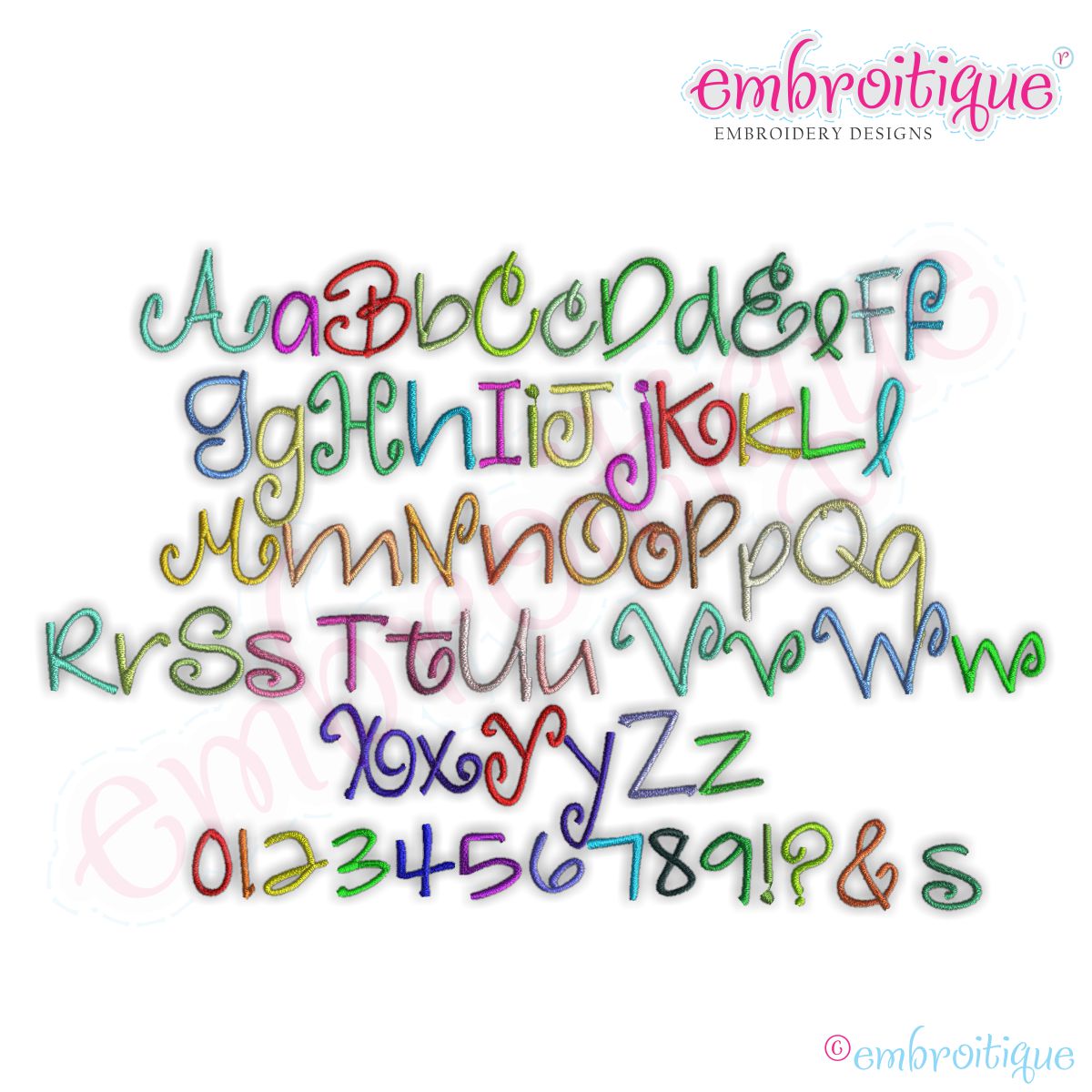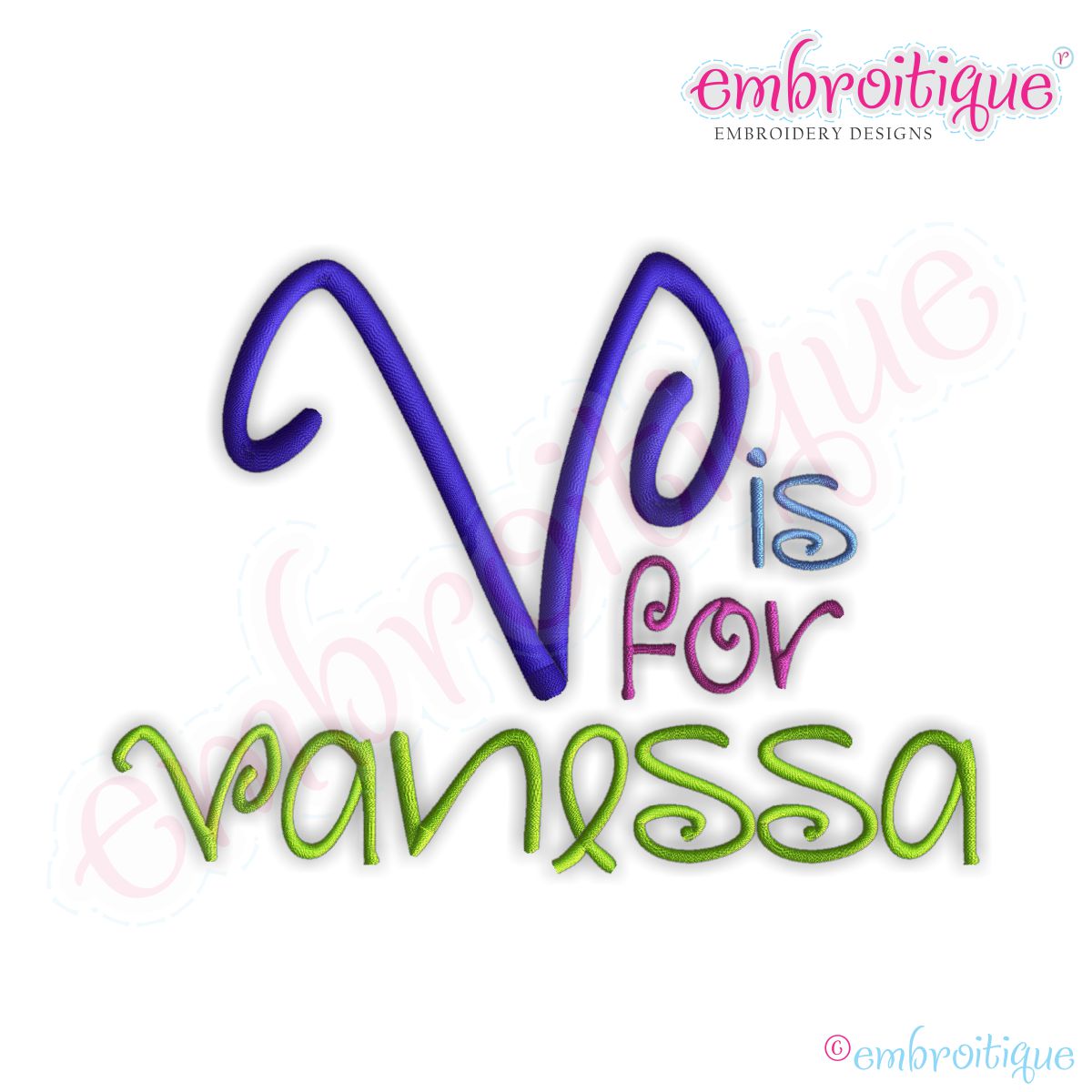
Vanessa Monogram Font Set - Large
This is such a fun satin-stitch set! Also availabe in smaller sizes. Each letter is an individual file that you can use to build monograms, names and sayings.